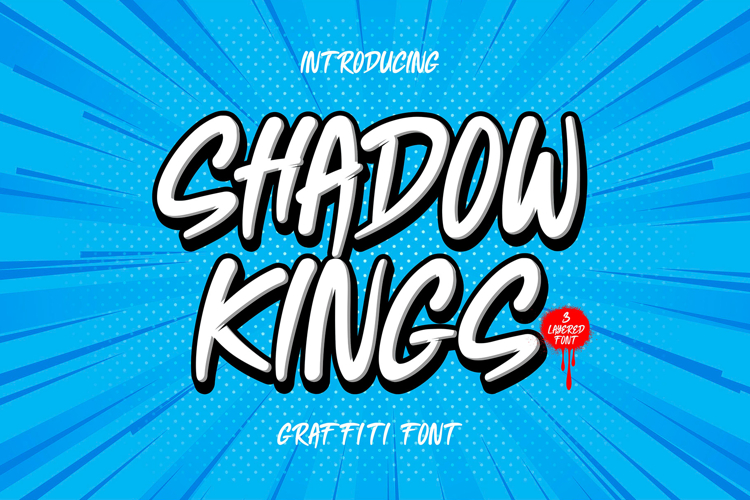
Shadow Kings - 3d Layered Urban Graffiti Font
Shadow Kings – Urban Graffiti Font
Unleash the raw energy of the streets with Shadow Kings, a bold urban graffiti font that embodies the rebellious spirit of street art. Designed to make a statement, this font blends authentic spray-paint textures, edgy strokes, and dynamic letterforms, giving your designs a fierce, streetwise attitude.
Perfect for posters, album covers, murals, signage, social media graphics, and urban-themed projects, Shadow Kings delivers an untamed, hand-drawn aesthetic with an instant urban vibe to any creative work. Whether you're crafting a hip-hop flyer, edgy branding, or video thumbnails, this font ensures maximum impact.
✅ Raw & authentic graffiti style
✅ Handcrafted street art feel
✅ Uppercase letters
✅ Punctuation & multilingual support
✅ Perfect for murals, posters, music, branding, and more
Step into the underground culture and make your designs stand out with Shadow Kings – the ultimate urban graffiti font.